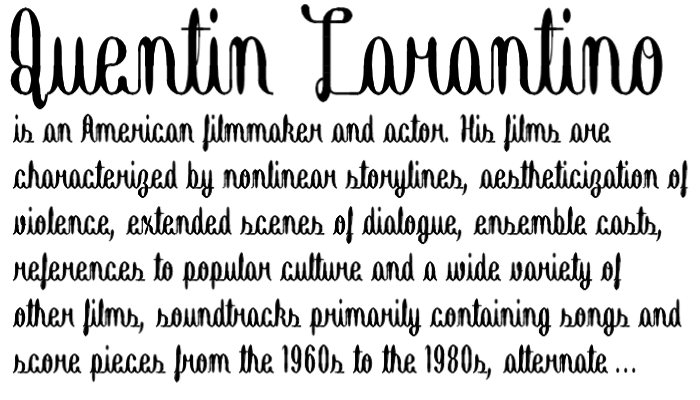
I love it. I see some things that I would address myself, but I absolutely love it. Cursive scripts are difficult and you should be praised for this, no matter the critiques you will get. But, that said, I think there could be a few improvements. The T looks like an L, the Q I am not sure about, though I do arrive at the fact that it is a Q. I think you could improve the L, Z and the 2 with a little curly loop at the end of the character stroke at the baseline, or make the stroke bolder? Up to you. Maybe not make the T connect?
I say all that with loads of respect and warm love for your creation, just trying to help. I love it. Again, someone is accomplishing that which I cannot do. ;)
Quentin Tarantino...
I love it. I see some things that I would address myself, but I absolutely love it. Cursive scripts are difficult and you should be praised for this, no matter the critiques you will get. But, that said, I think there could be a few improvements. The T looks like an L, the Q I am not sure about, though I do arrive at the fact that it is a Q. I think you could improve the L, Z and the 2 with a little curly loop at the end of the character stroke at the baseline, or make the stroke bolder? Up to you. Maybe not make the T connect?
I say all that with loads of respect and warm love for your creation, just trying to help. I love it. Again, someone is accomplishing that which I cannot do. ;)
Corrected L, Z, 2, T.
this is SO COOL i can't believe it's done in fs
It is good well yeah